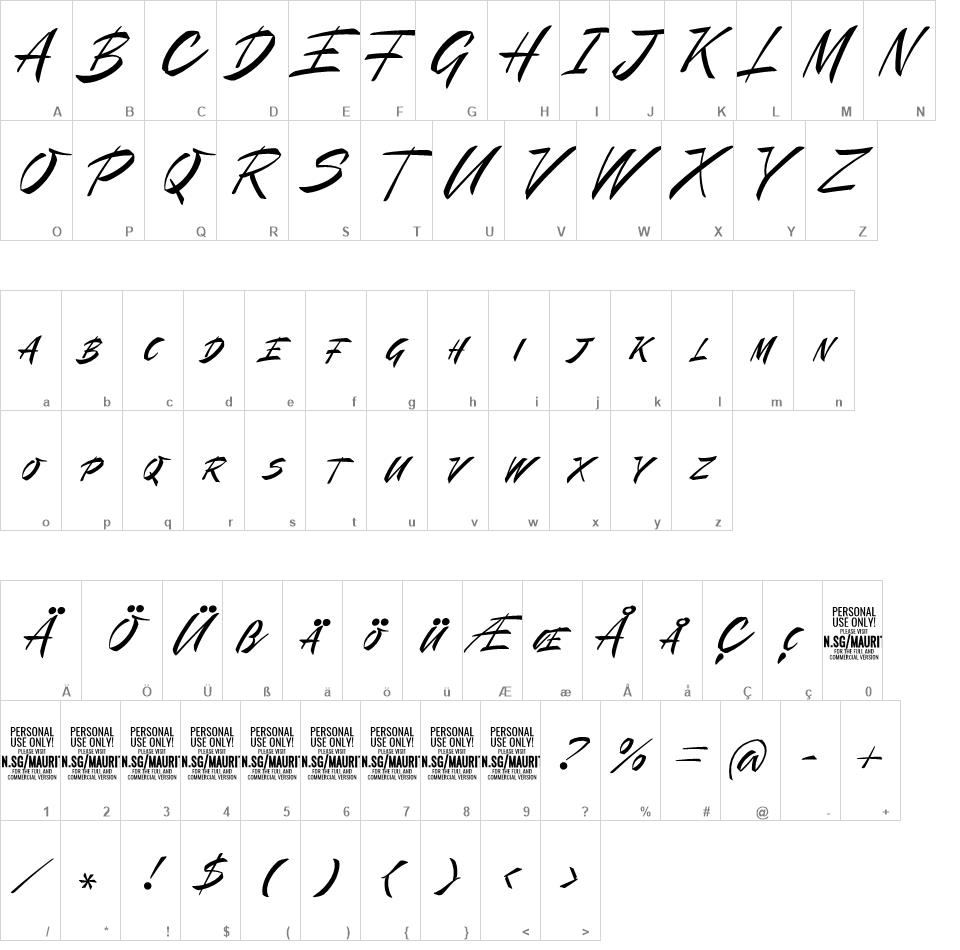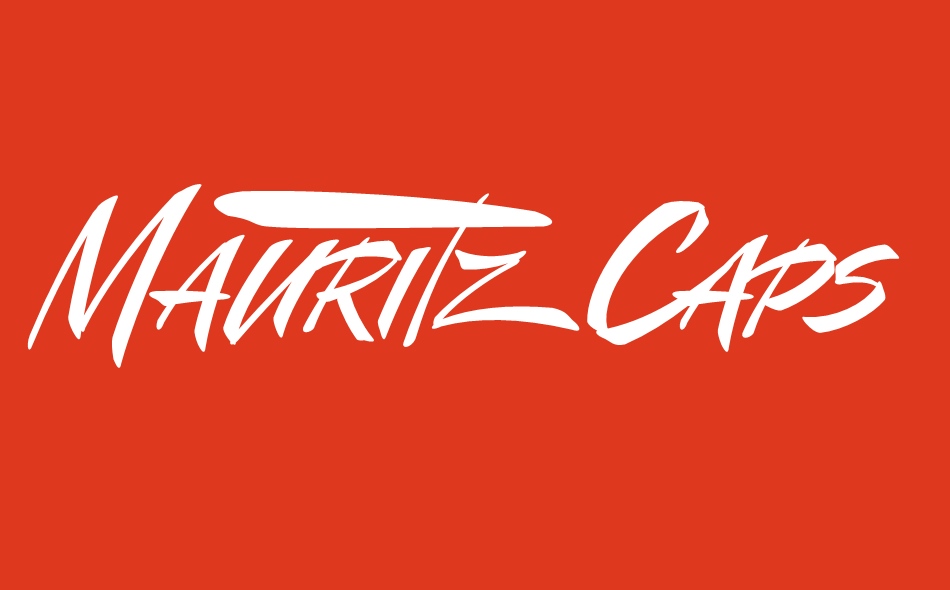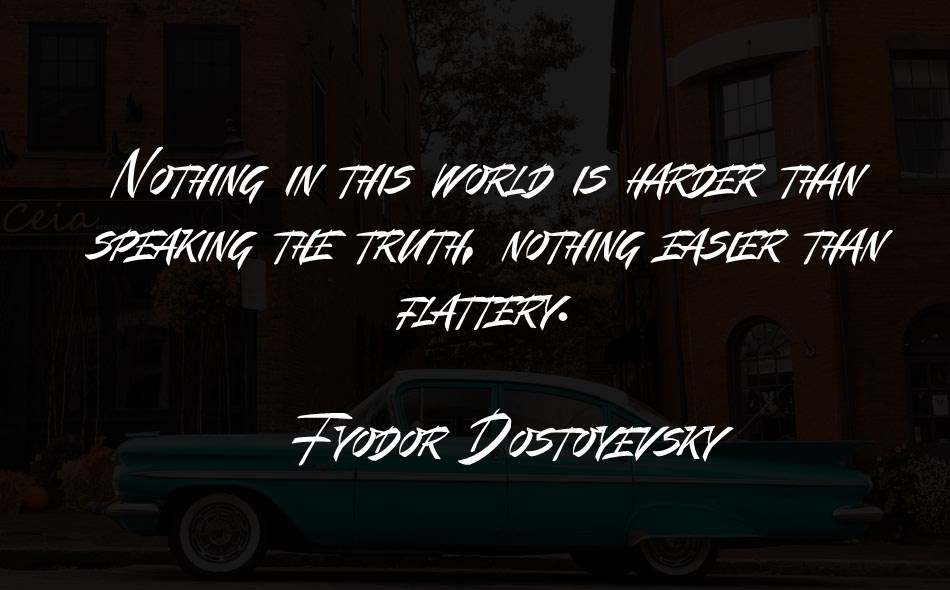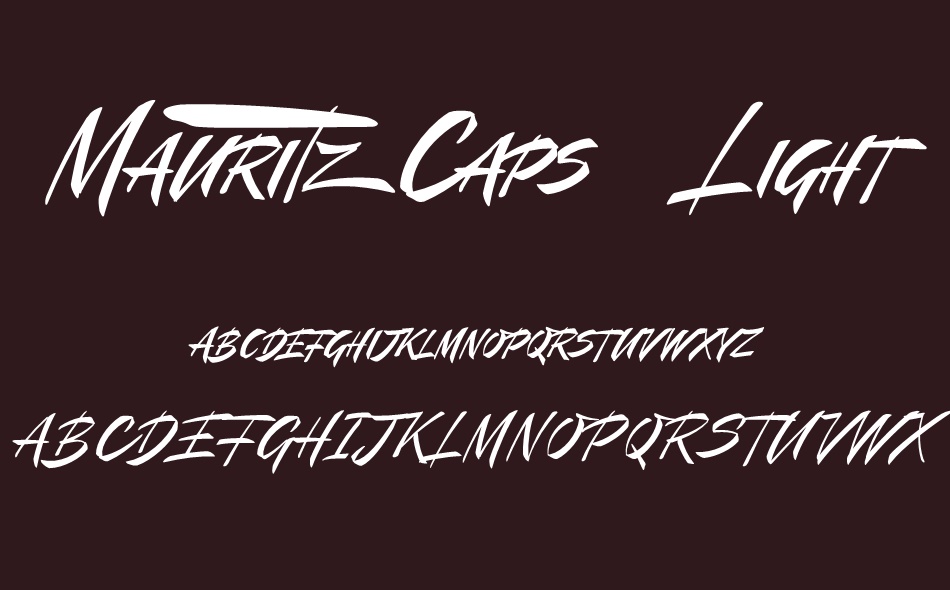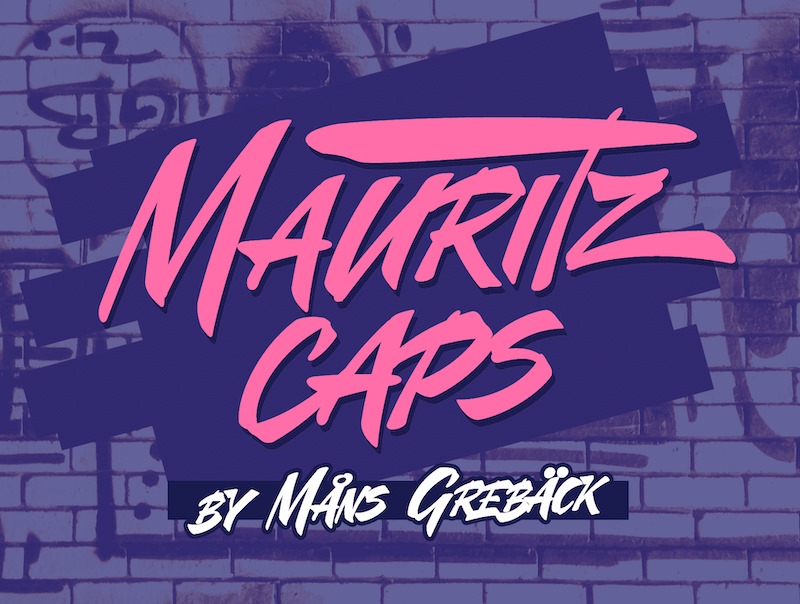
Mauritz Caps font
Use underscore _ anywhere in a word to make a swash.
Example: Sign_ature
Use multiple underscores for different swashes.
Example: Supe______rcars
Mauritz Caps is a brush script typeface.
A lively uppercase graffiti-style lettering fonts, Mauritz Caps was drawn and created by Mans Greback in 2021 to be the ultimate set of wild-style handwritings for logotypes and branding.
Use underscore _ anywhere in a word to make a swash. Example: Sign_ature Use multiple underscores for different swashes. Example: Supe______rcars (Download required.)
This calligraphy family consists of five high-quality fonts in a variety of weights: Mauritz Caps Thin, Light, Regular and Bold.
The font is built with advanced OpenType functionality and has a guaranteed top-notch quality, containing stylistic and contextual alternates, ligatures and more features; all to give you full control and customizability. It has extensive lingual support, covering all Latin-based languages, from North Europe to South Africa, from America to South-East Asia. It contains all characters and symbols you'll ever need, including all punctuation and numbers.